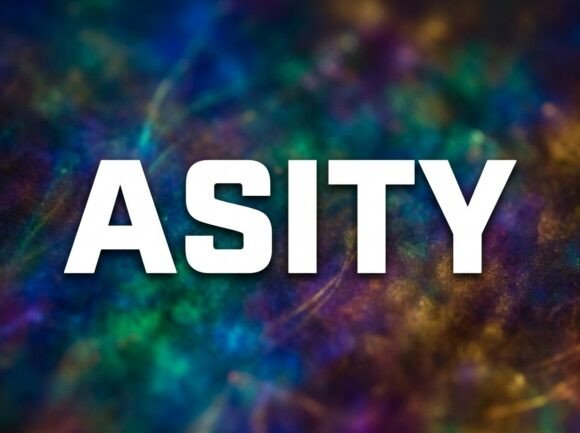
Introducing Asity Font: The Ultimate Display Typeface for Bold and Industrial Designs
In the world of typography, a font can make or break a design. When it comes to creating a bold and industrial look, Asity Font is the perfect choice. This powerhouse display typeface is designed to command attention with its heavy, ultra-clean sans-serif letterforms that exude a sense of strength and stability. In this article, we’ll explore the features and benefits of Asity Font, and why it’s the premier choice for designers and crafters looking to create striking visuals.
The Design Philosophy Behind Asity Font
Asity Font is built on a foundation of rhythmic geometric balance and rock-solid stability. Its massive structural weight and uncompromising clarity make it the perfect choice for designs that require a bold and industrial look. The font’s clean sans-serif letterforms are carefully crafted to provide a sense of professionalism and corporate strength, making it ideal for businesses that want to make a lasting impression.
Key Features of Asity Font
- Heavy, ultra-clean sans-serif letterforms: Asity Font features bold and clean letterforms that are designed to grab attention.
- Rhythmic geometric balance: The font’s geometric balance provides a sense of harmony and stability, making it perfect for designs that require a sense of structure.
- Rock-solid stability: Asity Font’s stability ensures that it remains legible even at large sizes, making it perfect for headlines and titles.
- Massive structural weight: The font’s bold weight provides a sense of strength and power, making it perfect for designs that require a bold and industrial look.
Use Cases for Asity Font
Asity Font is a versatile typeface that can be used in a variety of design applications. Here are some of the most popular use cases:
- Independent fitness branding: Asity Font is perfect for fitness brands that want to create a bold and industrial look.
- Construction company logos: The font’s heavy and clean letterforms make it ideal for construction company logos that require a sense of strength and stability.
- High-impact sports broadcast graphics: Asity Font’s bold and clean design makes it perfect for sports broadcast graphics that require a sense of energy and excitement.
- Professional “corporate-strength” social media headers: The font’s professional and clean design makes it ideal for social media headers that require a sense of corporate strength.
Why Choose Asity Font?
Asity Font is a premium display typeface that offers a range of benefits for designers and crafters. Here are some of the reasons why you should choose Asity Font for your next design project:
- Unique and distinctive design: Asity Font’s bold and industrial design sets it apart from other typefaces.
- High-quality and legible: The font’s clean and bold design ensures that it remains legible even at large sizes.
- Versatile and adaptable: Asity Font can be used in a variety of design applications, from fitness branding to construction company logos.
- Professional and corporate-strength: The font’s clean and bold design makes it perfect for professional and corporate-strength designs.
In conclusion, Asity Font is a powerhouse display typeface that is designed to command attention with its bold and industrial look. Its heavy, ultra-clean sans-serif letterforms, rhythmic geometric balance, and rock-solid stability make it the perfect choice for designers and crafters looking to create striking visuals. With its versatility and adaptability, Asity Font is the premier choice for a range of design applications, from independent fitness branding to professional social media headers. So why settle for a ordinary font when you can command attention with Asity Font?